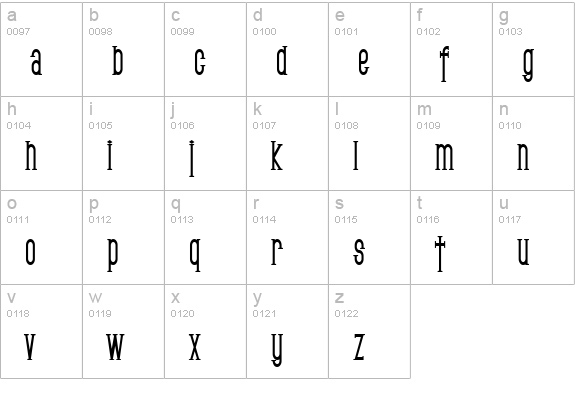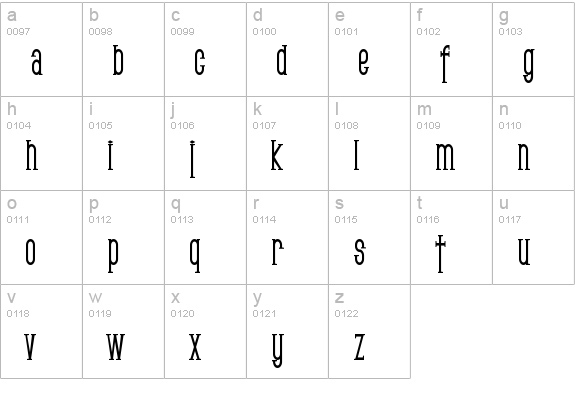
SF Gothican Condensed Bold Font Details
SF Gothican Condensed Bold is a strong, high-contrast, condensed-width variant in the SF typeface family \xE2\x80\x94 well suited to headlines, attention-grabbing titles, and strong calls-to-action.
SF Gothican Condensed Bold font is a captivating typeface that effortlessly combines the elegance of Gothic letterforms with a modern twist. Its condensed and bold design exudes a sense of strength and power, making it perfect for headlines, titles, and bold statements. This font showcases a unique fusion of vintage and contemporary aesthetics, making it highly versatile for a wide range of design projects. Whether you're working on a sleek and minimalist website, a mysterious book cover, or a striking poster, SF Gothican Condensed Bold will undoubtedly add a touch of sophistication and allure. What sets this font apart is not only its exceptional design but also its accessibility. It is freely available to download at FontsMarket.com, allowing designers and creatives to easily incorporate this stunning typeface into their work without any financial burden. This means that you can unleash your creativity without worrying about breaking the bank. SF Gothican Condensed Bold font is carefully crafted with attention to detail, ensuring that each character is meticulously designed to maintain consistency and legibility. The bold weight of this font adds impact and gravitas to your text, while the condensed proportions save valuable space without compromising readability. Whether you're designing a logo, creating eye-catching headlines, or setting the tone for a captivating visual experience, SF Gothican Condensed Bold font is a remarkable choice. Its striking presence and free availability make it an indispensable asset for any designer looking to make a bold statement. Download it today at FontsMarket.com and unlock the potential to create stunning designs that will leave a lasting impression.